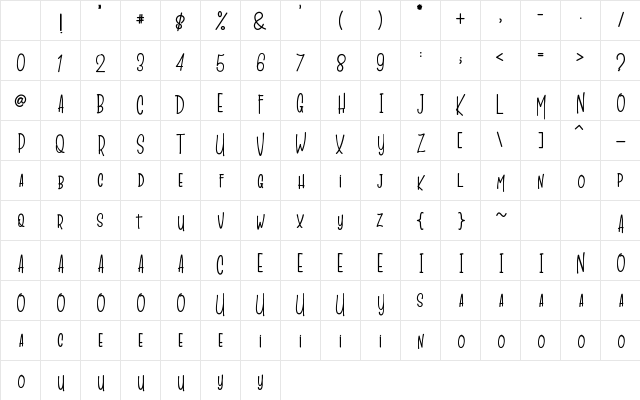
Complete The Crost HorMenT Regular glyph index. Displaying only characters natively supported by The Crost HorMenT Regular font.
The Crost HorMenT is a composed and adaptable typeface that performs quietly and consistently across a wide range of design contexts.